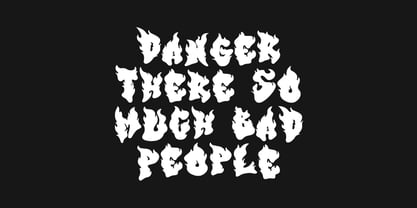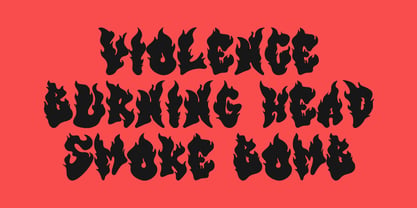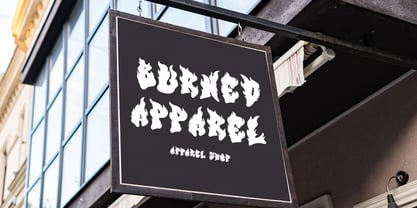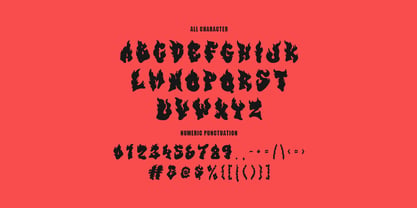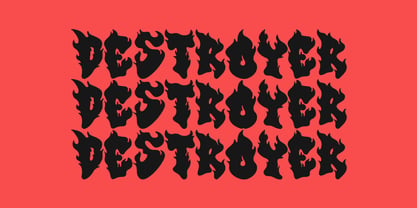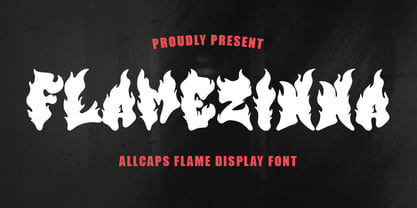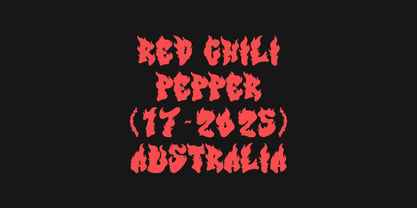
MC Flamezinna
by Maulana Creative
The MC Flamezinna Font Family was designed by Gilang Maulana and published by Maulana Creative. MC Flamezinna contains 1 styles. More about this family
Flamezinna is a flame graffiti style display font. To give you an extra creative work. Flamezinna font support multilingual more than 100+ language. This font is good for logo design, Social media, Movie Titles, Books Titles, a short text even a long text letter and good for your secondary text font with sans or serif. Make a stunning work with Flamezinna font.
Designers: Gilang Maulana
Foundry: Maulana Creative